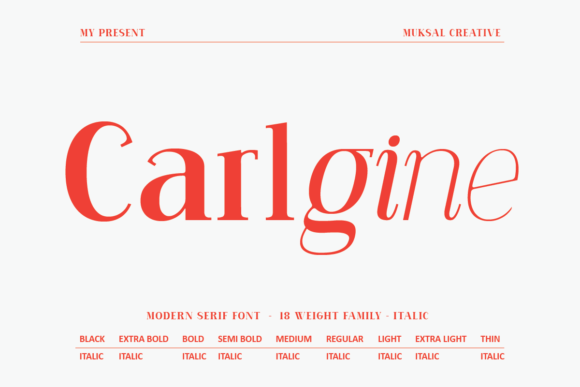
Discover the Versatility of Carlgine Font: A Modern Serif Family
In the world of typography, a font can make all the difference in the visual appeal of a design. For designers and crafters looking for a unique and modern serif font, Carlgine is an excellent choice. This comprehensive font family offers 18 variations, ranging from thin to black, making it incredibly versatile for various design applications.
What is Carlgine Font?
Carlgine is a distinctive and contemporary serif font family designed to cater to a wide range of design needs. Its unique characteristics make it stand out from traditional serif fonts, offering a fresh perspective for designers. With 18 different weights, from the delicate thin to the robust black, Carlgine provides an extensive range of options for creating visually appealing text.
Key Features of Carlgine Font
- Unique and Modern Design: Carlgine boasts a modern aesthetic with traditional serif elements, making it perfect for designs that require a touch of sophistication.
- 18 Font Families: The font comes in 18 different weights, allowing designers to choose the perfect style to match their design’s tone and emphasis.
- Versatility: Whether it’s for magazines, posters, branding, websites, or any other design project, Carlgine’s versatility ensures it can be used successfully across various mediums.
- Legibility: Despite its unique design, Carlgine maintains high legibility, making it suitable for both headings and body text.
Applications of Carlgine Font
The versatility of Carlgine makes it an ideal choice for a multitude of design applications. Here are some of the areas where Carlgine can make a significant impact:
- Magazines and Newspapers: The range of weights in Carlgine allows for excellent hierarchy creation in editorial design, making it perfect for magazine and newspaper layouts.
- Posters and Flyers: For print materials like posters and flyers, Carlgine’s bold weights can be used to grab attention, while the lighter weights ensure readability.
- Branding: Carlgine can be effectively used in logos and branding materials to give a modern yet classic feel to a brand’s identity.
- Websites: The font’s legibility on digital screens makes it an excellent choice for web design, ensuring a pleasant reading experience for users.
Tips for Using Carlgine Font Effectively
To maximize the potential of Carlgine, consider the following tips:
- Mix and Match: Don’t be afraid to use different weights of Carlgine within the same design to create visual hierarchy and contrast.
- Pair with Other Fonts: While Carlgine is versatile on its own, pairing it with complementary fonts can add depth and interest to your design.
- Consider the Context: Choose a weight that matches the tone of your content. For example, use lighter weights for body text and bolder weights for headings.
| Author | Muksal Creative |
Carlgine font offers a fresh and modern approach to serif typography, providing designers with a versatile tool for a wide range of projects. Its unique design, combined with its extensive range of weights, makes it an excellent addition to any designer’s font library. Whether you’re working on a magazine, a website, or a branding project, Carlgine is sure to bring a touch of modern elegance and sophistication to your work.